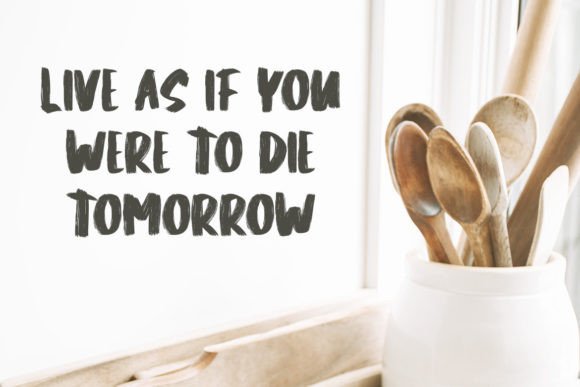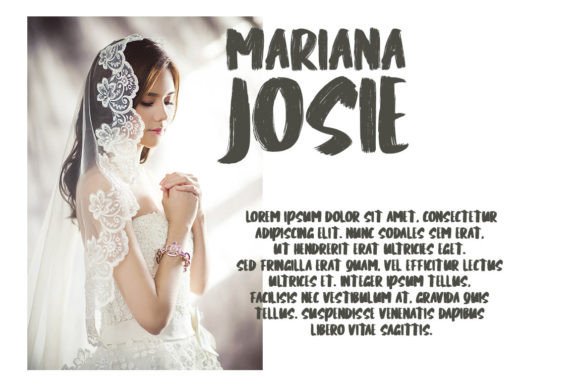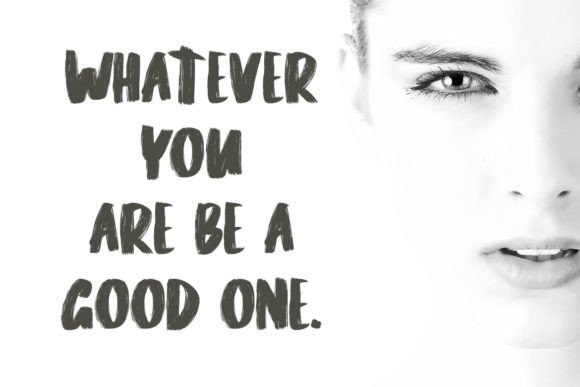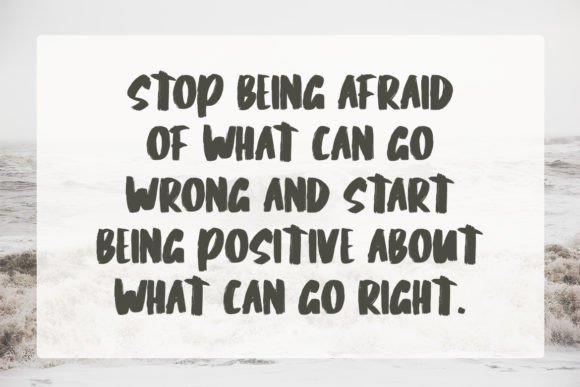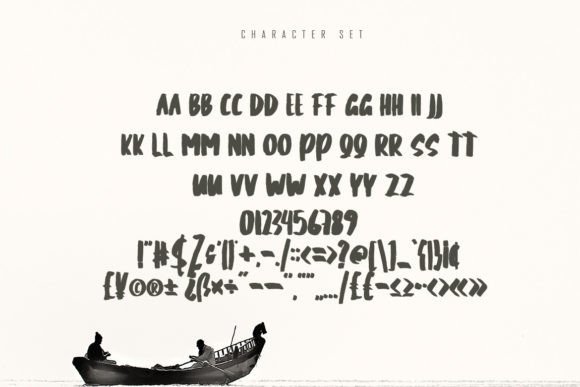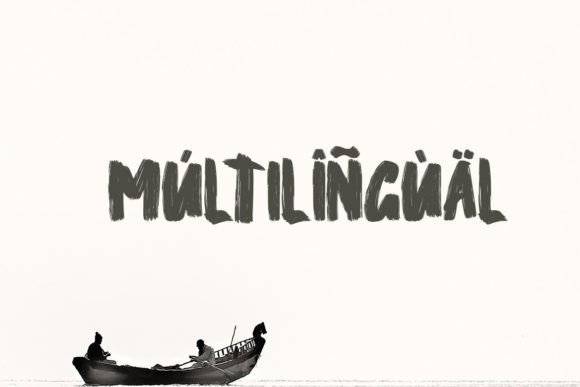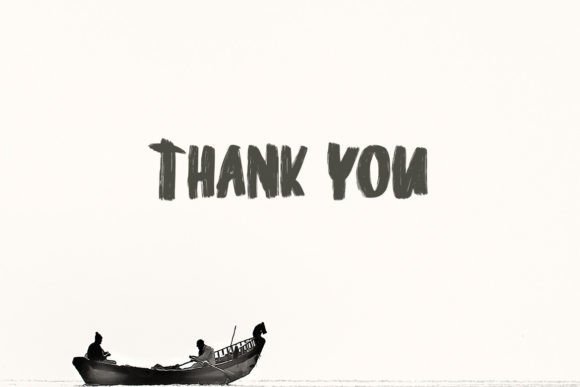
Uspore Font
About Uspore Font
Introducing Uspore, a font inspired by the typography of natural brushes. Crafted with the swift motion of a brush pen, Uspore has a slightly dry and realistic appearance. This font is versatile and well-suited for a range of design applications, making it suitable for commercial needs, magazine fashion design, logos, product packaging, headlines, posters, merchandise, social media, and other greeting cards.
Uspore’s inspiration from natural brushes gives it a unique and authentic quality. The quick motion and slightly dry texture create a realistic appearance, making it a visually engaging choice for various design projects.
For commercial needs and magazine fashion design, Uspore adds a touch of creativity and flair. Its brush-inspired typography brings a dynamic and trendy feel, making it suitable for layouts that demand a modern and edgy aesthetic.
In logos and product packaging, Uspore stands out with its realistic and distinctive look. The font’s brush pen style adds character and personality, making your brand identity or product packaging visually appealing and memorable.
Headlines and posters adorned with Uspore acquire a dynamic and eye-catching quality. The font’s brush-inspired strokes contribute to bold and impactful designs, capturing attention and conveying messages effectively.
For merchandise and social media, Uspore’s versatility shines. Whether you’re creating promotional materials or engaging with your audience on various platforms, this font adds a touch of creativity and authenticity to your content.
In greeting cards and other design projects, Uspore brings a unique and realistic charm. The brush pen style adds a personal and handmade touch, making your designs stand out with character.
Uspore is crafted to adapt seamlessly to a variety of design contexts. Its realistic and brush-inspired aesthetic makes it a valuable asset for projects that aim to convey a sense of creativity, authenticity, and modernity.
In conclusion, Uspore is a font that brings the natural and realistic charm of brush-inspired typography to your designs. Choose Uspore to add a dynamic and trendy touch to your commercial, fashion, branding, and various design projects, creating visually stunning and memorable outcomes.